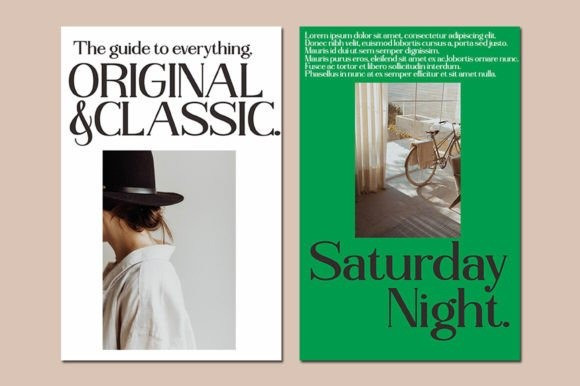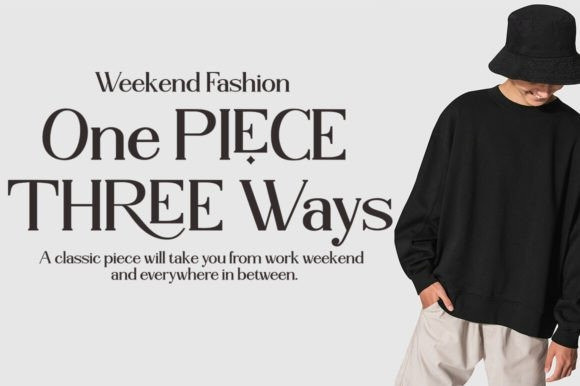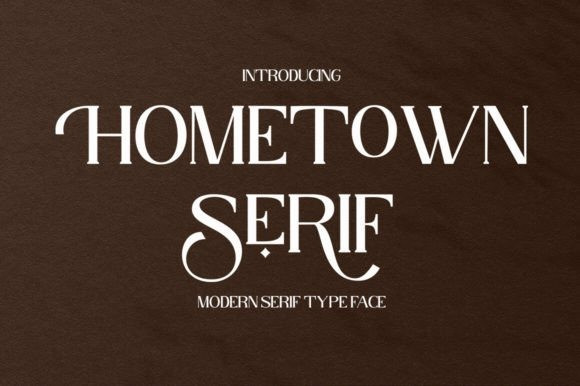
Hometown Serif Font
Hometown Serif Font attracts a typeface that is smooth, clean, unique, elegant, modern, feminine, sensual, glamorous, simple, and very easy to read. Classic style is very suitable to be applied in various formal forms such as invitations, labels, menus, logos, fashion, makeup, stationery, letterpress, romantic novels, magazines, books, greeting/wedding cards, packaging, and labels.